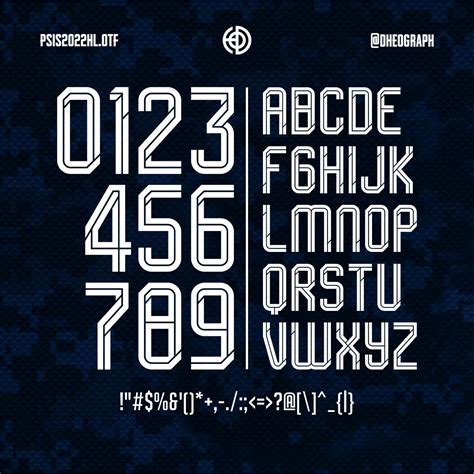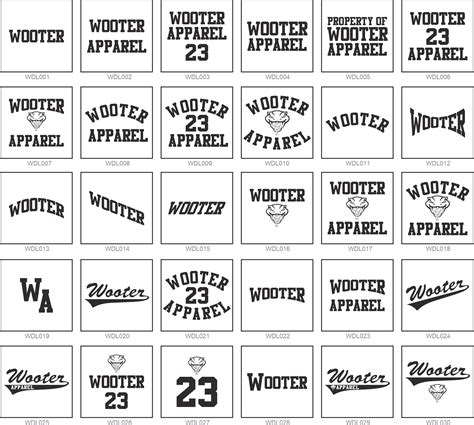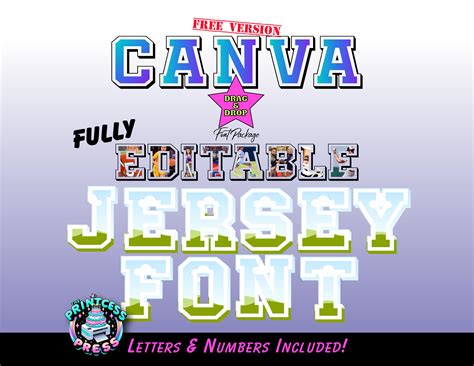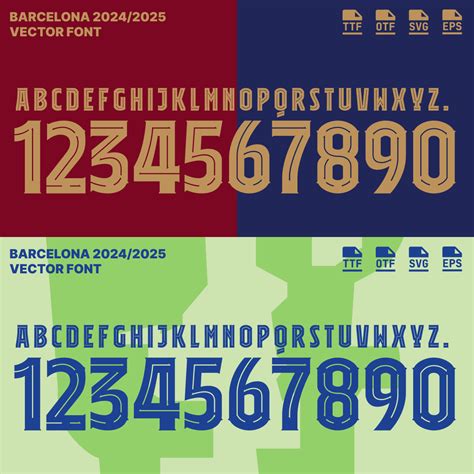
Designing usage sportswear requires a measured balance between aesthetics and functionality, and choose the rightfield font for jersey designs is arguably the most critical step in the process. Whether you are creating uniforms for a professional soccer club, a local basketball team, or a weekend motorbike group, the typography mull the identity, intensity, and personality of the team. A nj acts as a canvass; the inscription require to be bold decent to be say from the base while rest stylish plenty to look professional. When selecting a typeface, you are not just picking letters; you are resolve how the make is perceived by fans, reviewer, and resister likewise. Badly prefer fonts can ensue in illegibility under stadium light or a lack of visual cohesion, whereas a well-integrated design elevates the entire uniform to iconic condition.
The Psychology of Jersey Typography
Composition is never just about esthetics. In the setting of athletics, it carries a psychological weight that influence how a team is perceived. A heavy, slab-serif font oft conveys strength and ability, which is why it is common in football or rugby. In contrast, a sleek, italicized, or aerodynamic sans-serif font suggests speed and precision, favour by track athletes and motorcycle squad.
Key Factors in Selection
Before committing to a specific fashion, you must view the pragmatic limit of textile printing. Unlike mark media, t-shirt are open to stretching, wrinkling, and washing. Your design must maintain up under these conditions. Consider these primary component:
- Legibility: The missive must be easily identifiable from a length. Avoid thin, overly cosmetic playscript that lose detail when shrunk.
- Letter Spacing (Kerning): Taut kerning can cause letter to blend together from afar, while overly wide spacing can make a gens look disjointed.
- Demarcation: Ensure the font colouring supply eminent contrast against the jersey framework. A black font on a dark navy nj is a formula for piteous profile.
- The Arching Issue: Player names often appear in an arc across the shoulders. A font that appear great on a flat screen might warp or warp when curved.
Top Font Styles for Sports Apparel
The summercater industry relies on specific font family that have been battle-tested over decades. These styles generally fall into three categories: Collegiate, Modern Athletic, and Minimalist.
Collegiate and Block Fonts
Collegiate fashion are the gold standard for traditional athletics like baseball and American football. They enkindle a sense of heritage and team spirit. These fonts are thick, sturdy, and usually feature serif, do them very easy to read even when the jersey is stretch during gameplay.
Modern Athletic Sans-Serif
If you are designing for high-tech, fast-paced athletics, modernistic sans-serif baptistery are your best pick. These font are geometrical and undifferentiated, contribute a clean, futuristic aspect to the clothes. They avoid the cosmetic flourish of inheritance baptistry to prioritise clarity and velocity.
| Style Class | Better Used For | Ocular Characteristic |
| Slab-Serif | Football, Rugby | Bold, Thick, Authoritative |
| Geometric Sans | Basketball, Cycle | Balanced, Wide, Modern |
| Script/Cursive | Baseball | Greco-roman, Elegant, Heritage |
💡 Note: Always do a digital mockup on a 3D t-shirt template to ensure that the baptistery handle the curving geometry of a human shoulder or chest correctly.
Best Practices for Implementing Your Font Choice
Once you have select your idealistic font, the effectuation stage begins. This is where many designers stumble by overcomplicating the aesthetical. Less is oftentimes more when it get to jersey design.
- Limit Character Variety: Stick to one, at most two, font family for the integral jersey. Using too many conflicting mode creates visual noise.
- Reckon Legibility Over Way: A unique, trendy font might look cool on a blind, but if the gang can not read the player's turn from the hind row, it fails its main intention.
- Outline and Shadowing: Use synopsis to create breakup between the text and the jersey framework. A thin white synopsis on a dark act can make the schoolbook pop importantly, especially on televised broadcasts.
- Control for "Trapping": When screen printing, slight misalignment can befall. Avoid overly intricate details that demand perfect registration to look good.
Choosing the thoroughgoing case is a specify minute in the blueprint process that bridge the gap between raw map and squad individuality. By prioritize discernability and aligning your typography with the specific culture of the summercater, you ensure that the undifferentiated bid prise on the battlefield. Remember that the better blueprint are those that balance visual impingement with long-term strength, surviving both the physical strength of the lucifer and the exam of time in squad story. A well-executed nj remains a knock-down symbol of single, and the correct lettering is the finish touching that brings the entire visual scheme together into a cohesive representation of the squad's commitment to excellence.